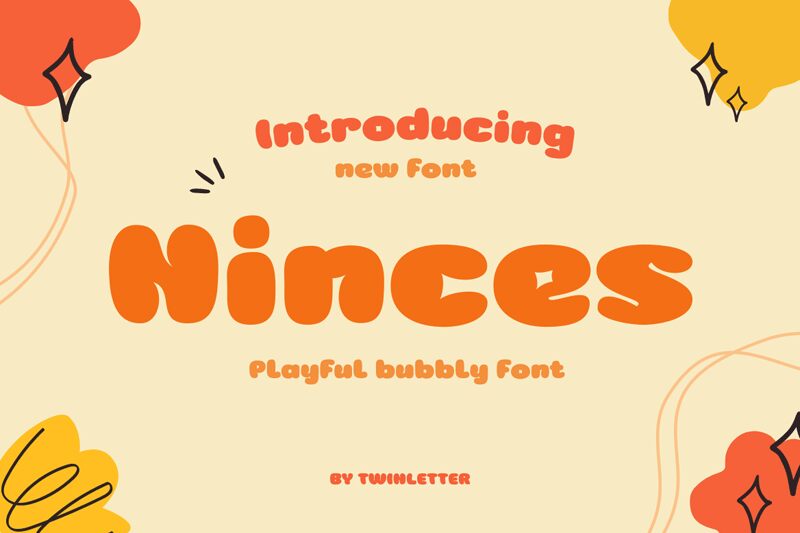
Ninces, the playful creation by twinletter, is a captivating display font that adds a touch of whimsy to any project. With its ultra-bold weight and expanded width, Ninces commands attention and brings characters to life.
Perfect for children's books, animated videos, and comic strips, this cartoon-inspired typeface injects personality into logos and headlines. Whether it's a vibrant poster or a website seeking an animated appeal, Ninces guarantees to leave an indelible impression on audiences with its bold strokes and lively charm.
Ninces